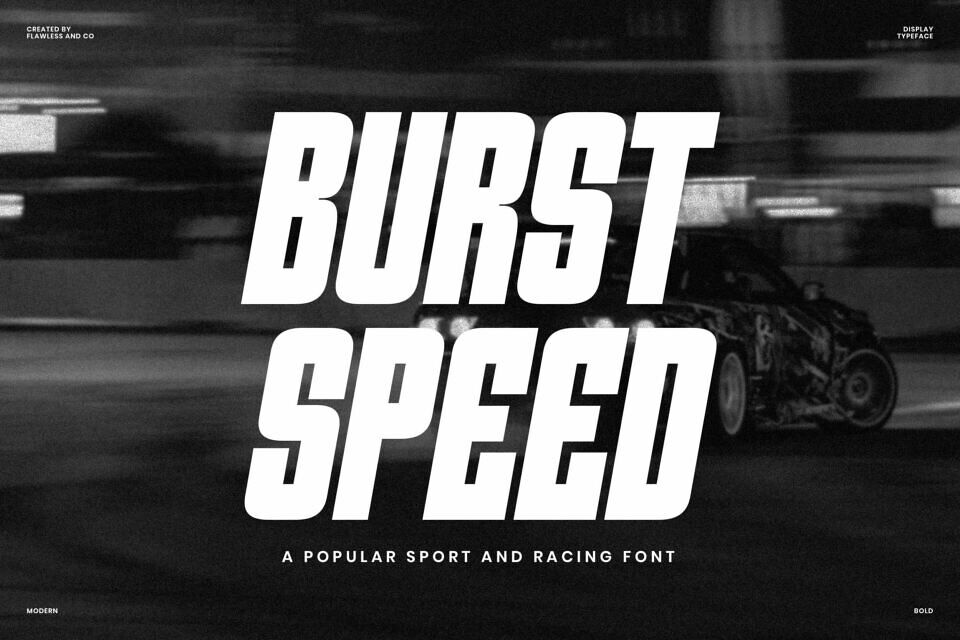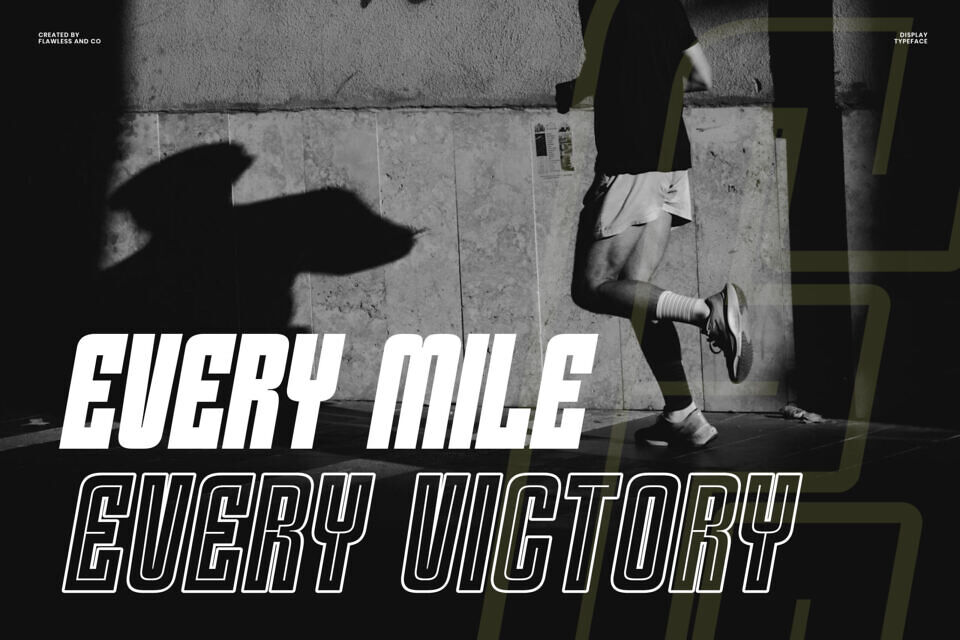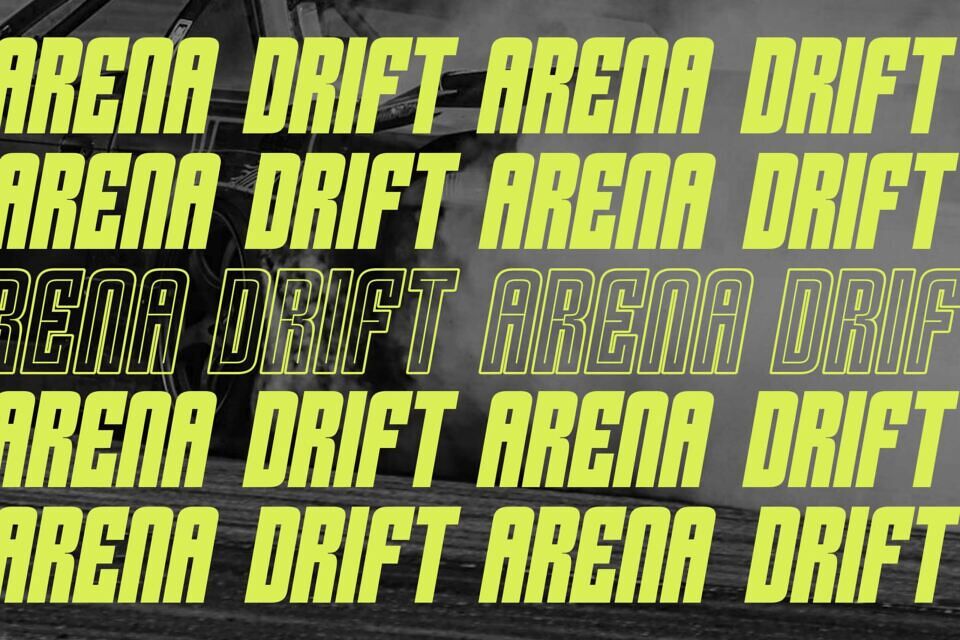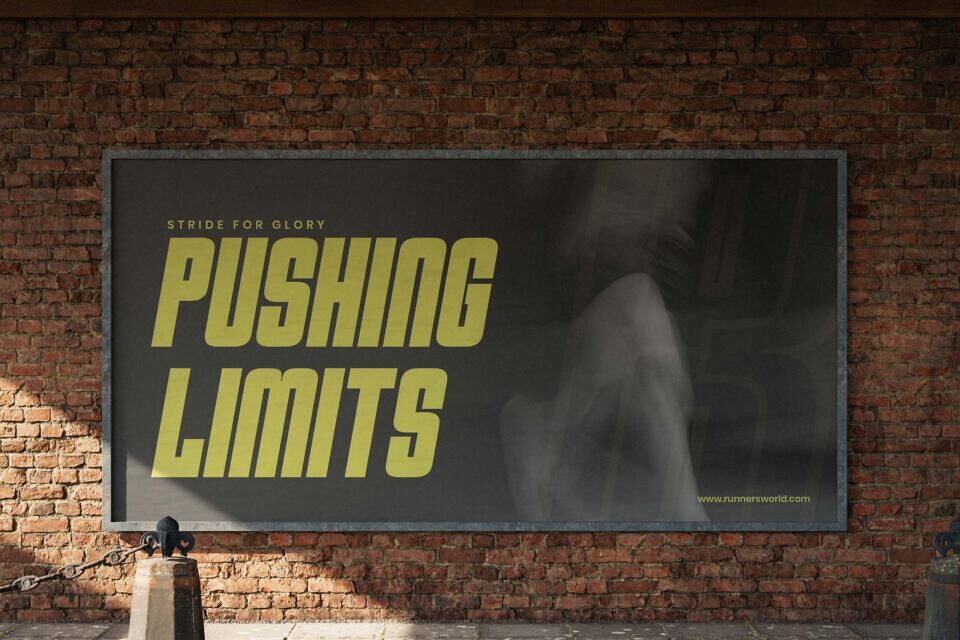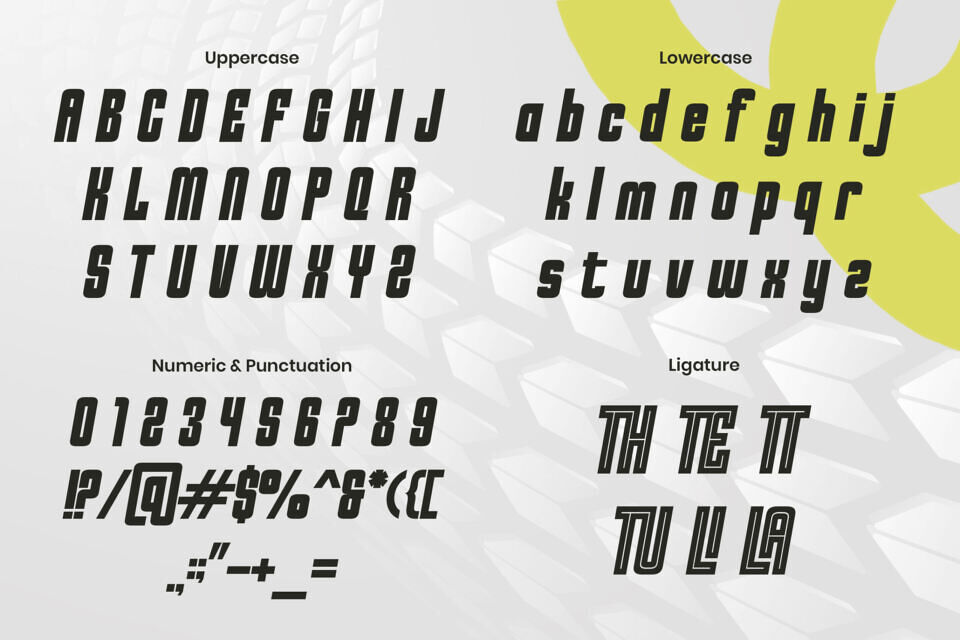
Burst Speed Font
Burst Speed is a high-octane display font built for those who live fast and drive harder. Inspired by the intensity of racetracks and the pulse of modern motorsport, Burst Speed fuels your design with bold presence and aerodynamic style.
With sharp cuts, strong verticals, and a slanted structure, Burst Speed brings velocity to your headlines, logos, event posters, and sports branding. Whether it’s for drifting tournaments, F1 promotions, or athletic gear, this font shouts power, precision, and performance.
Burst Speed is perfect for designers, creators, and brands looking to inject speed, power, and bold energy into their visuals.